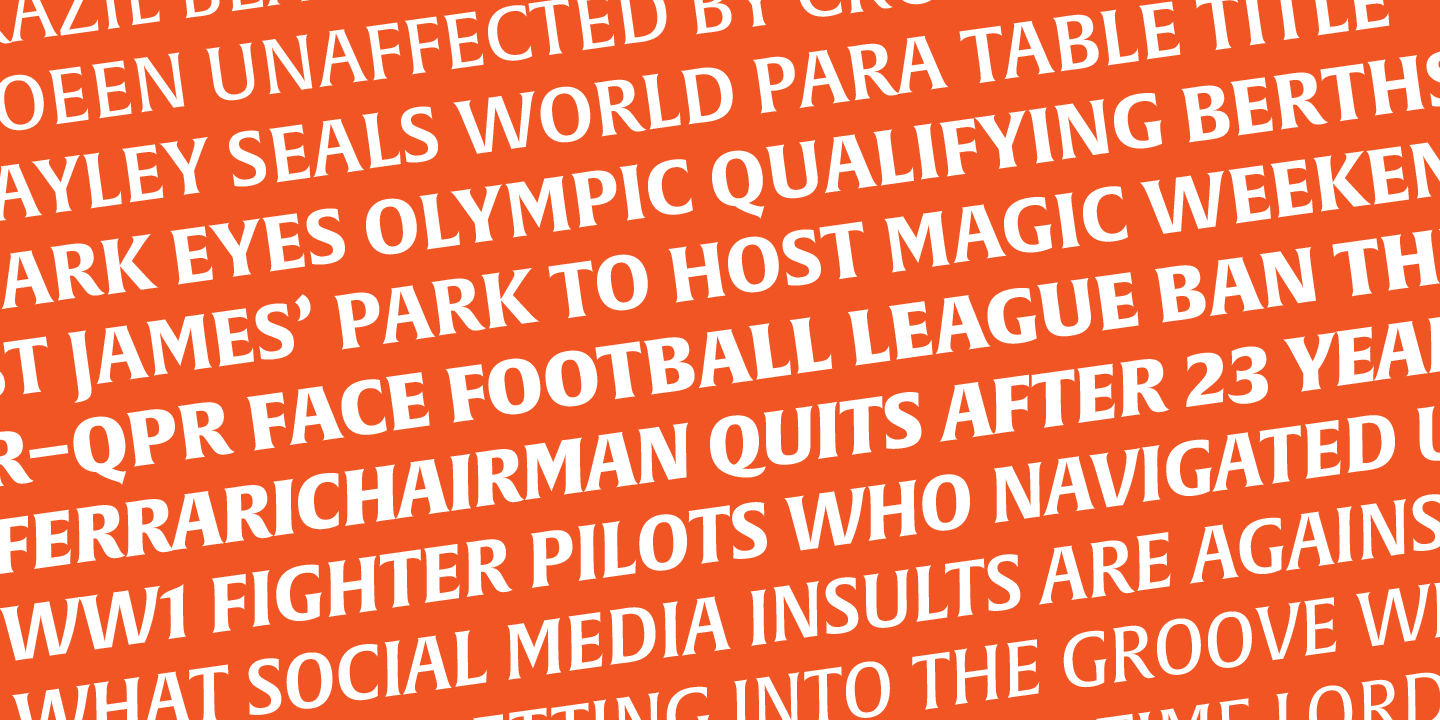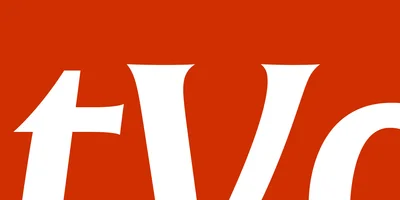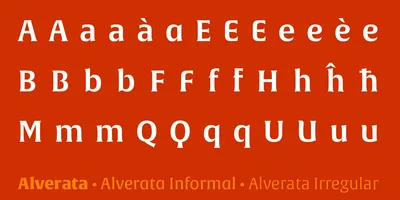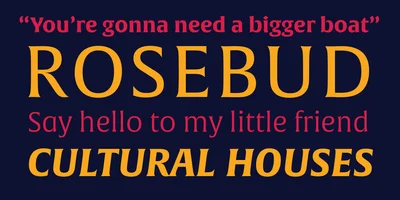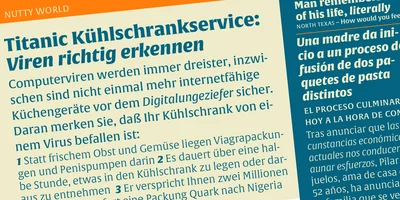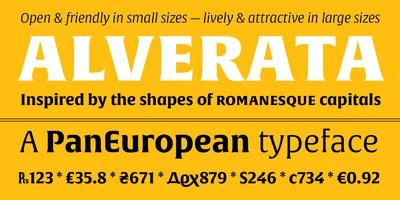
About Alverata
- Foundry
- TypeTogether
- Classification
- serif
- Style
- humanist
Alverata is a serif typeface designed by Gerard Unger and published by TypeTogether in 2014. The design draws from Unger's doctoral research into Romanesque letterforms found in 11th and 12th century European inscriptions. Alverata bridges historical stone-carved letter traditions with contemporary digital typography, featuring distinctive thorn-like serifs and slightly condensed proportions.
History and Design
Gerard Unger (1942-2018) was one of the most respected type designers of the 20th century. Alverata emerged from his academic research into Romanesque inscriptional letterforms, published as his PhD dissertation at Leiden University. The typeface translates the structural qualities of medieval stone carving — flared strokes, incised serifs, and open counters — into a functional modern text face. The family includes three stylistic variations: Regular (the formal standard), Informal (with calligraphic touches), and Irregular (with deliberate imperfections echoing hand-carved inscriptions).
Design Characteristics
Alverata features a large x-height and slightly condensed proportions that create efficient, legible text. Its short, thorn-like serifs distinguish it from traditional bracketed serifs, giving the typeface a unique presence. The large interior spaces within letters ensure excellent readability at small sizes, while the distinctive details become lively and attractive at display sizes.
Where Alverata Excels
- Editorial publishing: The combination of readability and distinctive character makes it ideal for magazines, books, and journals
- Cultural institutions: Museums, galleries, and academic organizations benefit from its historical depth and contemporary polish
- Corporate communications: Annual reports, brand materials, and formal documents
- Multilingual projects: Extended Latin coverage, with Cyrillic and Greek sold as separate companion products (Alverata Cyrillic, Alverata Greek)